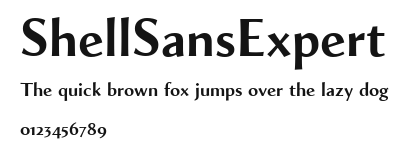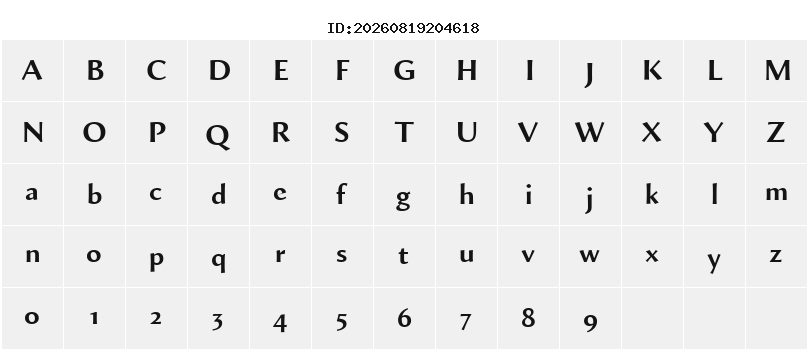
• Font Name: ShellSansExpert
• Full Font Name: ShellSansExpert-Bold
• Copyright: (c) copyright 1998, The Font Bureau, Inc. Designed by Tobias Frere-Jones.
About ShellSansExpert.ttf
ShellSansExpert.ttf is a modern, elegant sans-serif font designed for ultimate readability and visual harmony. Perfect for branding, headlines, web design, and print materials.